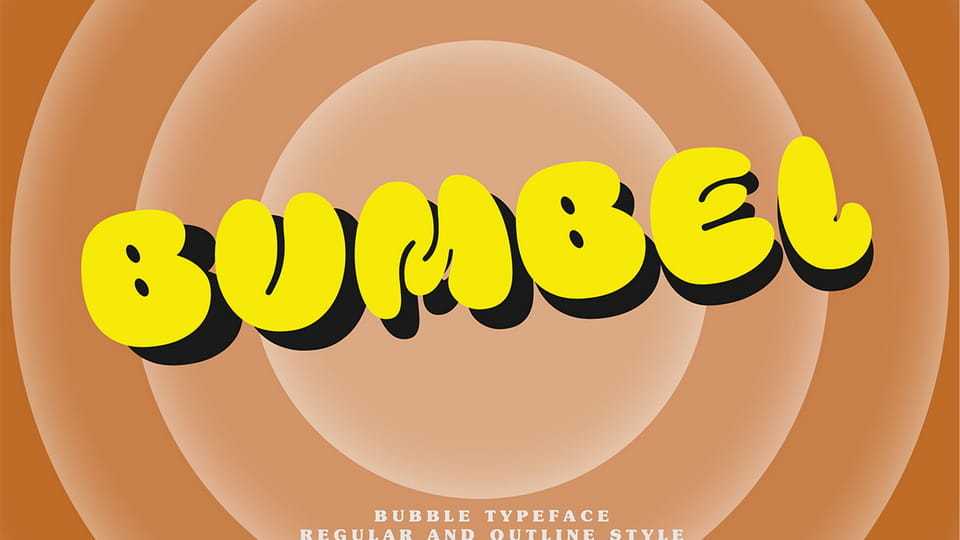
Download Bumbel font, a captivating typeface that combines the essence of bubble dynamics with a modern and funky style. Its unique design exudes energy and playfulness, making it perfect for projects that require a fresh and vibrant look.